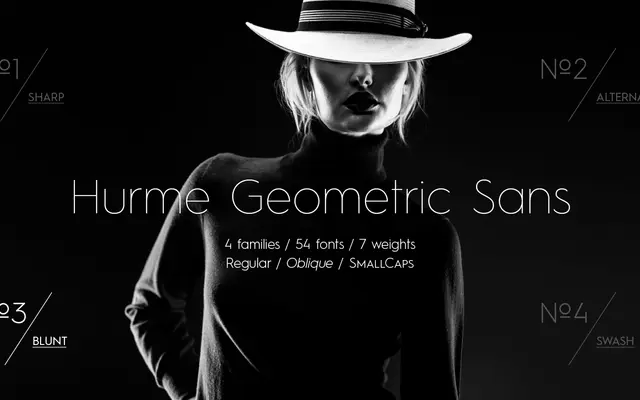
Hurme Geometric Sans №3
A seven-weight geometric sans from Hurme Design with true small caps, obliques and broad Latin language coverage.
Part of the wider Hurme Geometric Sans series, all sharing the same underlying construction and proportions, this third instalment runs from Hairline to Black across fourteen styles including obliques. True small caps and OpenType alternate characters give the family additional flexibility for text and display work. The extensive language list covers well over a hundred Latin-script languages, making it a practical choice for multilingual publishing.
Named explicitly as a geometric sans and part of a series sharing the same basic construction and proportions; clean uniform stroke weight and geometric basis confirm the classification.